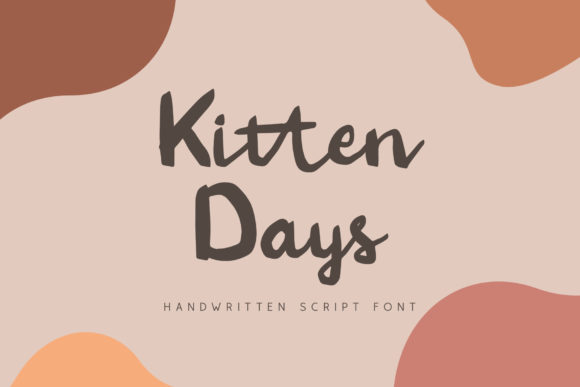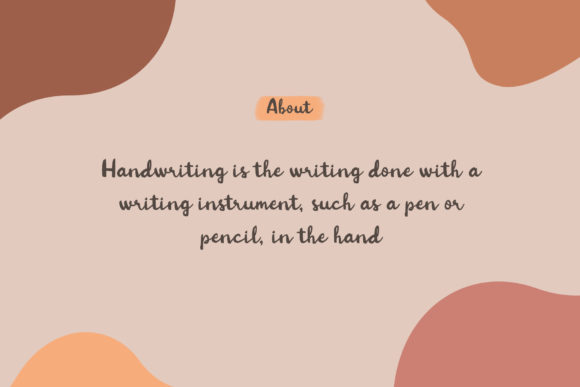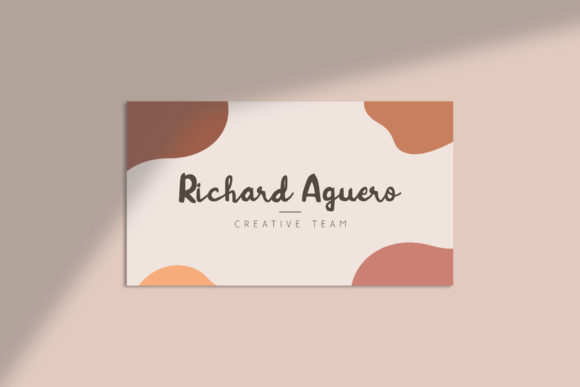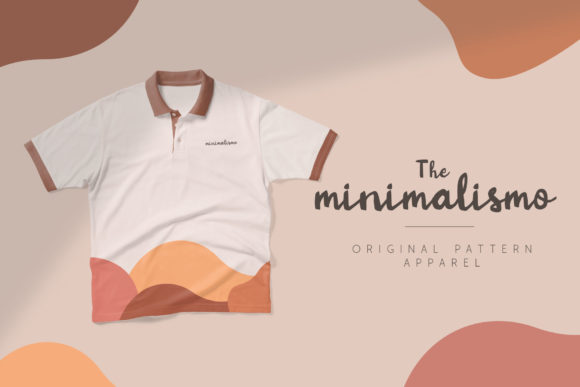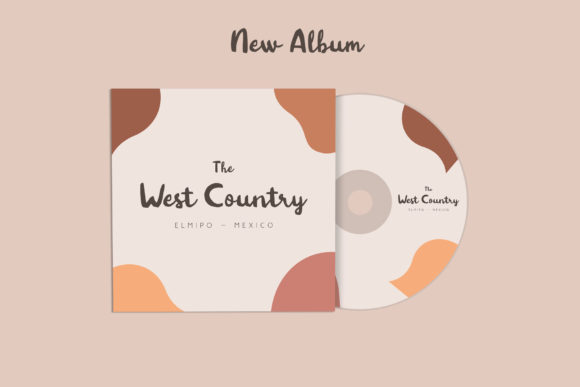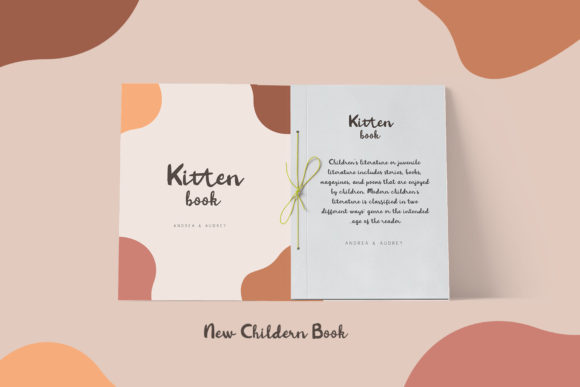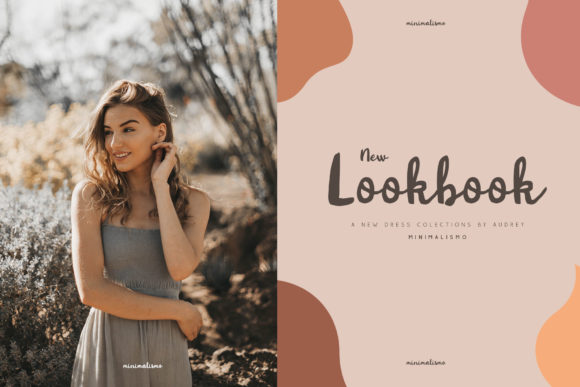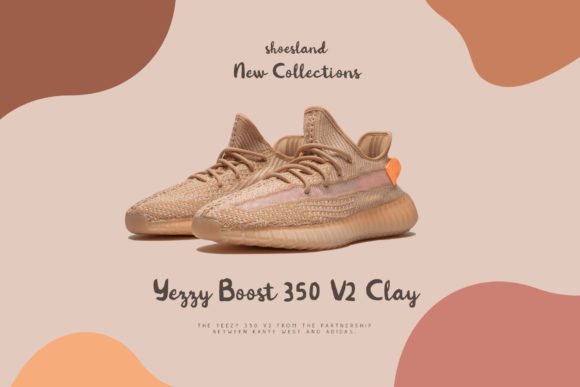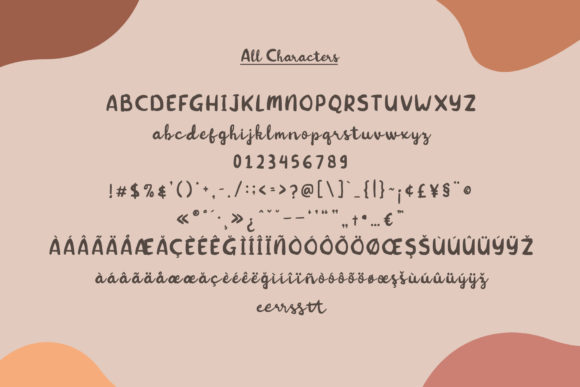
HomeScript FontsKitten Days Font Script Fonts Kitten Days Font FacebookXPinterestWhatsApp Kitten Days Font Poster 2 Kitten Days Font Poster 3 Kitten Days Font Poster 4 Kitten Days Font Poster 5 Kitten Days Font Poster 6 Kitten Days Font Poster 7 Kitten Days Font Poster 8 Kitten Days Font Poster 9 About Kitten Days Font Kitten Days is a cute and playful handwritten font with a charming twist. Get inspired by its unique style! DOWNLOAD NOW People also explored Rellative Font Pink Lemonade Font Miera Font This is Internet Font Wonderful Christmas Font Andasia Font Idyllic Summer Collection Cloudsplitter BB Oshopo Font 305 0 TagsKitten Days Font Previous articleLadybug FontNext articleRocka & Billy Font LEAVE A REPLY Cancel reply Comment: Please enter your comment! Name:* Please enter your name here Email:* You have entered an incorrect email address! Please enter your email address here Website: Save my name, email, and website in this browser for the next time I comment. Personal Use Free Hillgates Personal Use Free Read more about this font Angelitta Personal Use Free Read more about this font Crayones Personal Use Free Read more about this font Built Tilting Personal Use Free Read more about this font BLOG Exploring Font Trends Shaping Communication in the Digital Era Fonts, like all design elements, are subject to trends. They play a crucial role in communicating a brand's personality,... Where to Buy American Fonts Online in 2024 Free vs Paid Fonts: Why Investing in Premium Fonts Is Worth It Free Fonts Risk: Why Free Fonts Can Be Dangerous for Designers